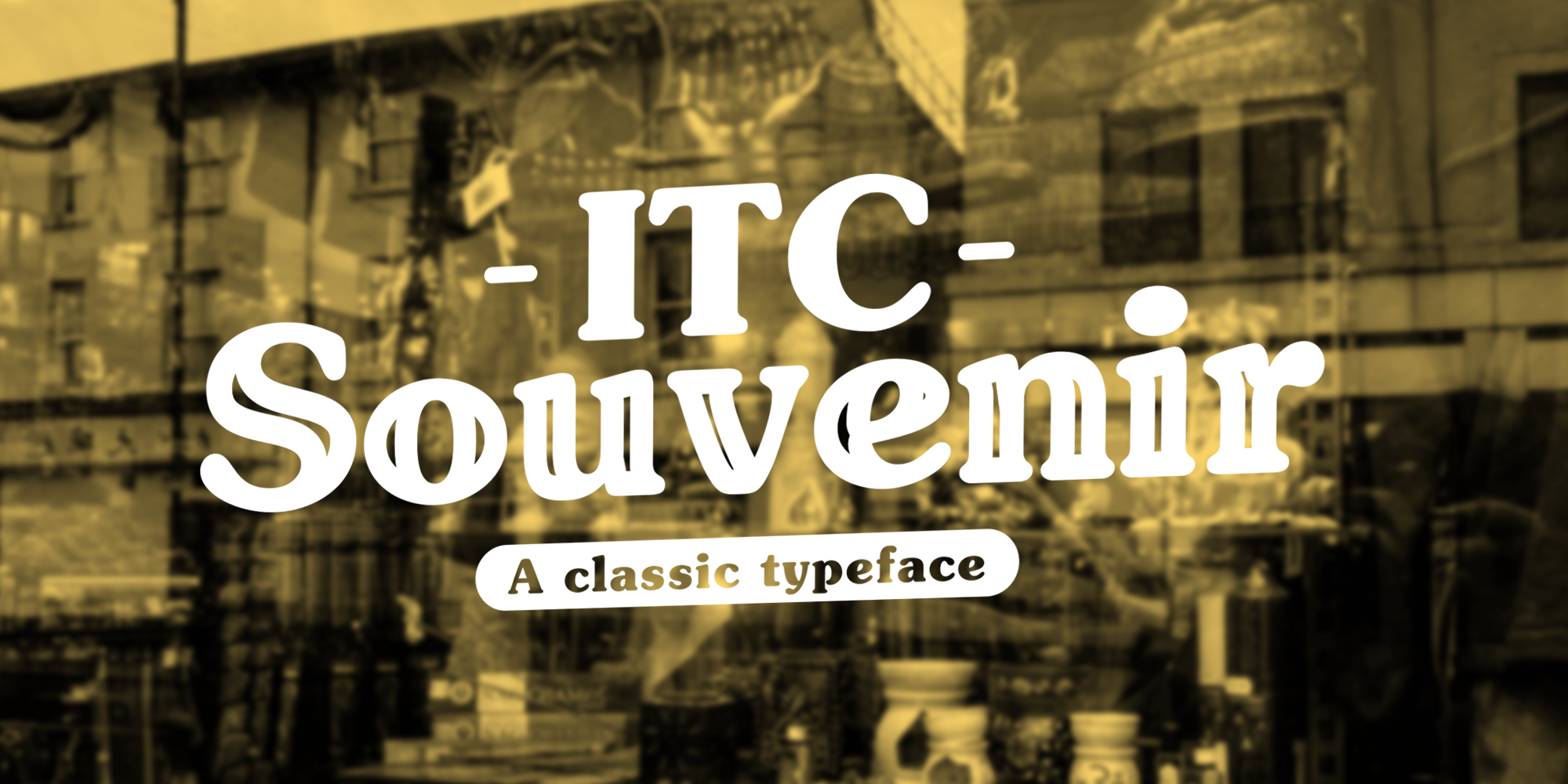
ITC Souvenir Font is perfect for nostalgic projects including vintage postcard designs, retro travel brochures, antique shop branding, heritage museum materials, classic cookbook covers, traditional wedding invitations, memory keepsake albums, and sentimental greeting cards. This charming typeface brings warm nostalgia and vintage elegance to any design project.
What makes ITC Souvenir Font exciting is its beautiful evocation of cherished memories and timeless moments through soft, rounded letterforms that feel like handwritten keepsakes. The graceful character design features gentle curves and vintage proportions that capture the essence of treasured souvenirs while maintaining excellent readability for sentimental communications. This font delivers the perfect combination of nostalgia and accessibility that transforms ordinary designs into precious memories.
The ITC Souvenir Font family typically includes light, medium, and bold weights with corresponding italic styles, complete uppercase and lowercase alphabets, numerals, punctuation, and vintage symbols. The design often incorporates soft characteristics and nostalgic elements that enhance the sentimental aesthetic. Premium versions may include decorative flourishes, ornamental characters, and additional vintage-themed elements perfect for memory and heritage applications.
Whether you're designing for heritage brands, memory services, or nostalgic marketing campaigns, ITC Souvenir Font Free Download delivers the heartwarming charm that creates lasting emotional connections. Its sentimental presence makes it ideal for memorable keepsakes and brand communications that need to evoke cherished memories and timeless values. The font's nostalgic heritage ensures it communicates warmth and tradition, making it perfect for any project requiring the beloved aesthetic of vintage charm and sentimental remembrance.